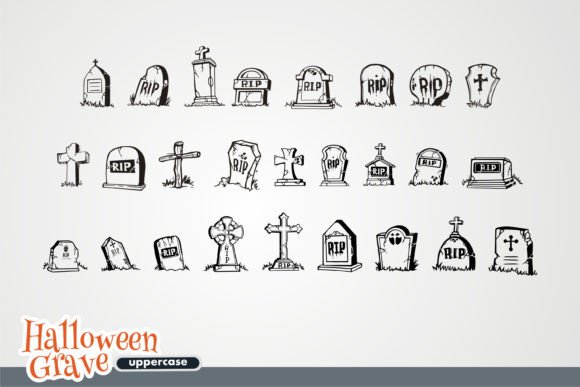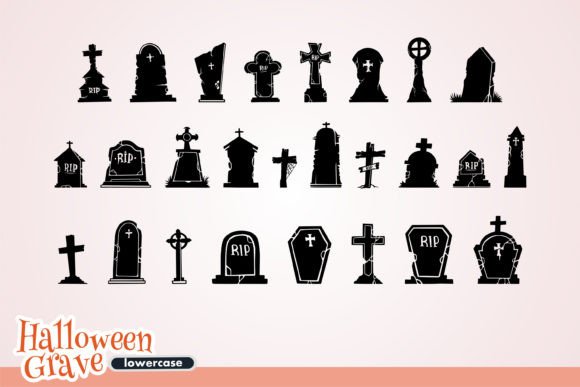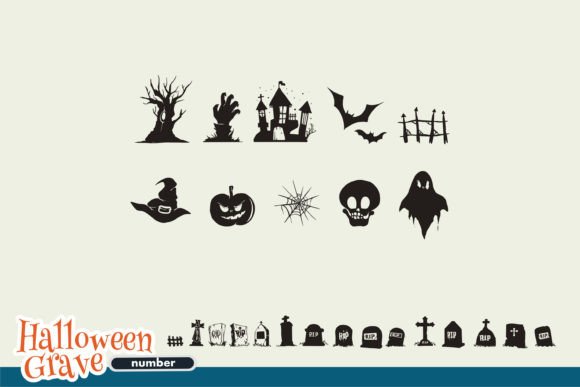
Introduction to Halloween Grave Font
Halloween Grave is a playful dingbat font.
This font is inspired by the Halloween theme it contains glyphs of various tombstone shapes.
Key Features of Halloween Grave Font